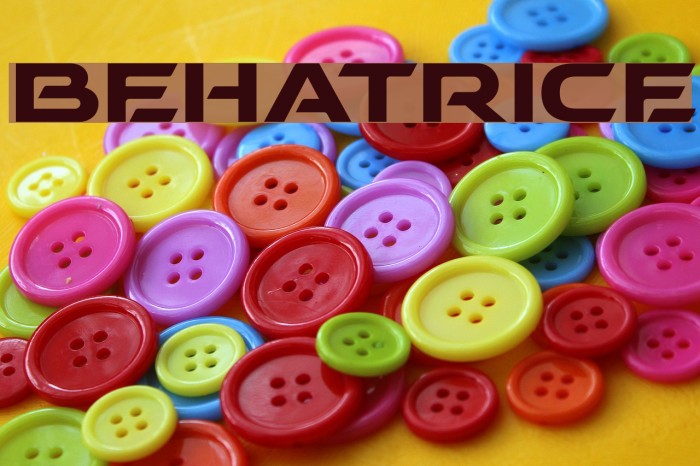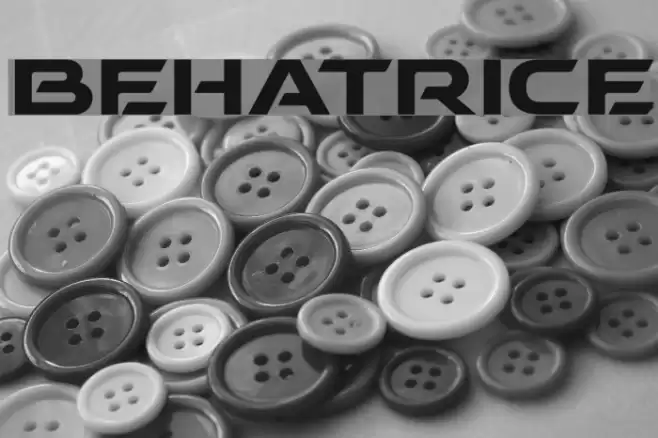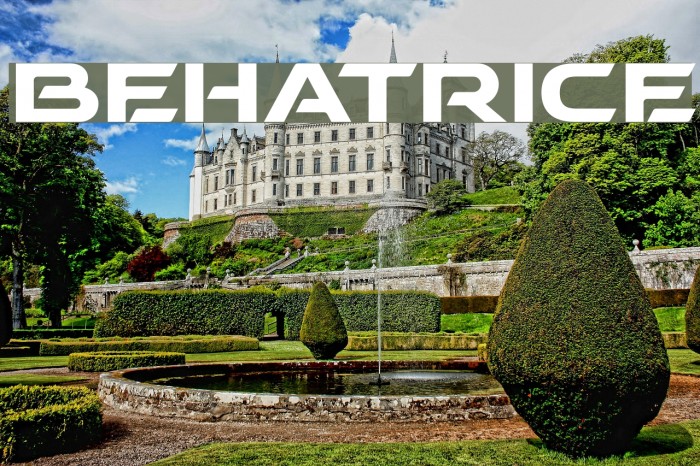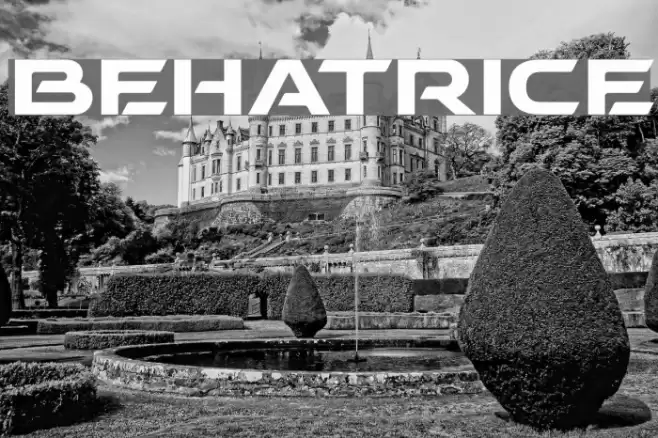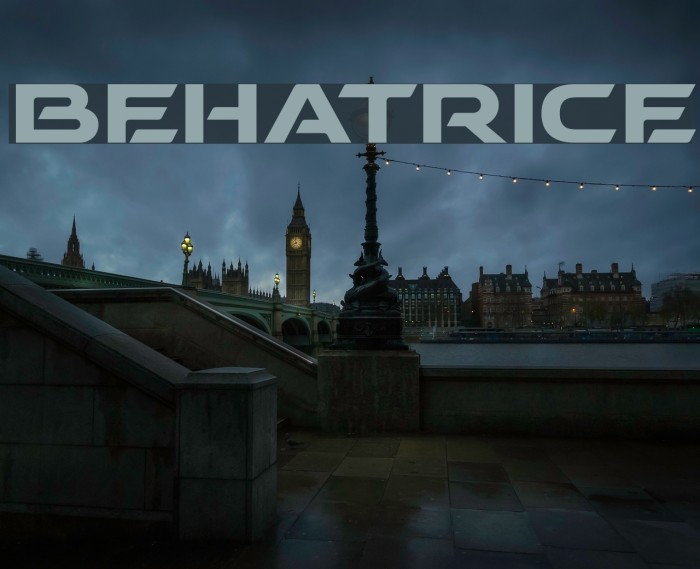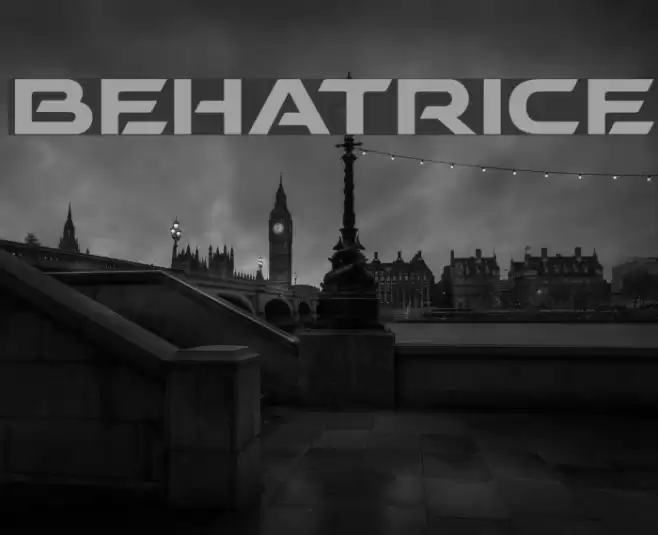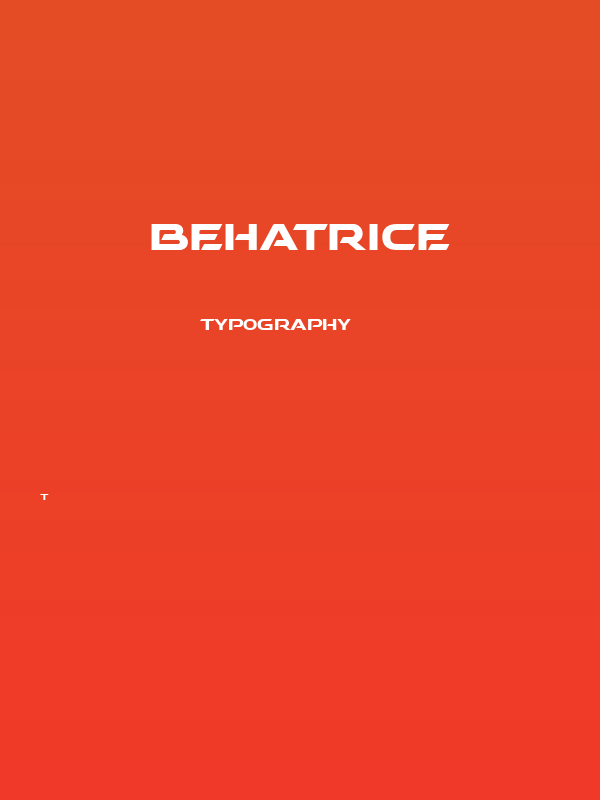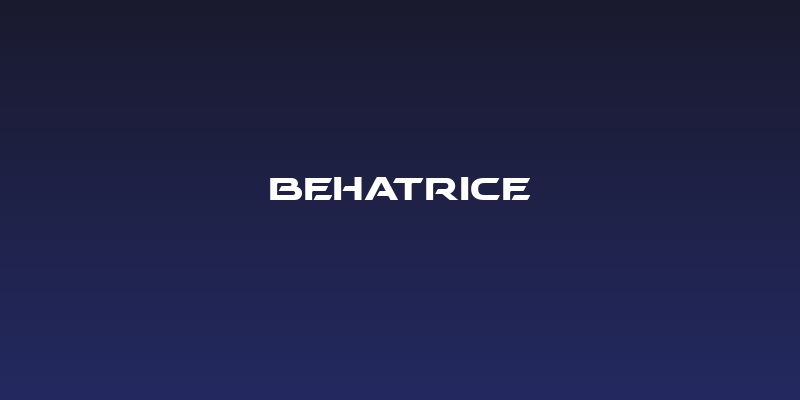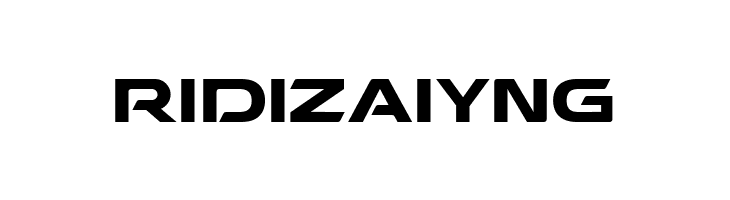
BEHATRICE Font
BEHATRICE Description
This font features a bold and futuristic design with geometric elements. The characters are crafted with sharp angles and a consistent stroke width, giving it a strong and assertive appearance. The uppercase letters are particularly striking, with unique cutouts and slanted edges that add a dynamic feel. The overall design is clean and modern, making it suitable for projects that require a contemporary and impactful look. The font's structure is uniform, ensuring readability while maintaining its distinctive style.
Proposed ProjectsIdeal for technology branding, sci-fi themed projects, modern posters, and video game titles.